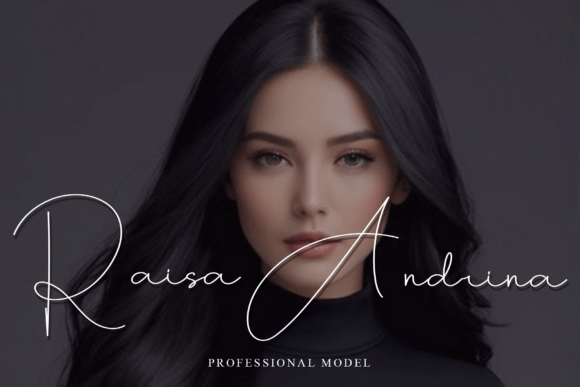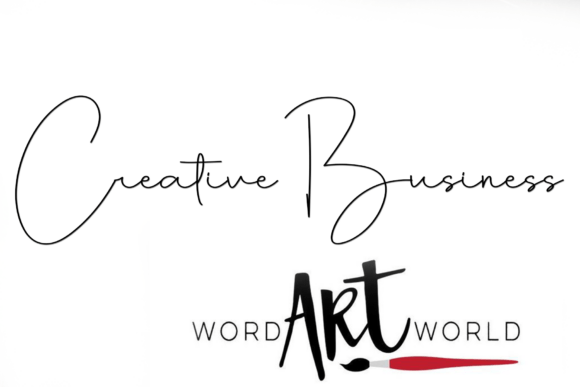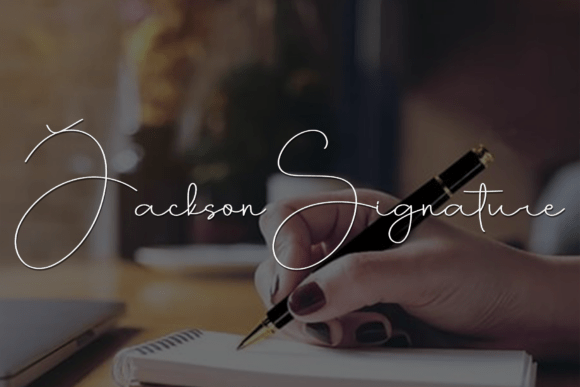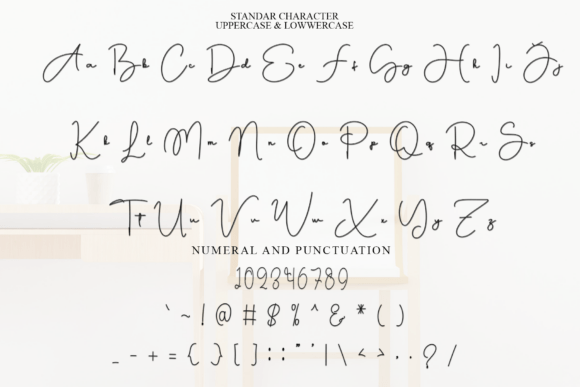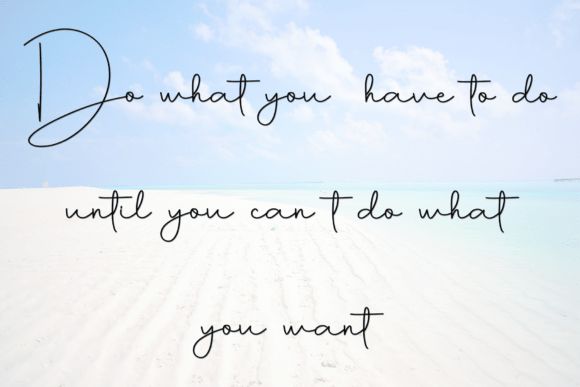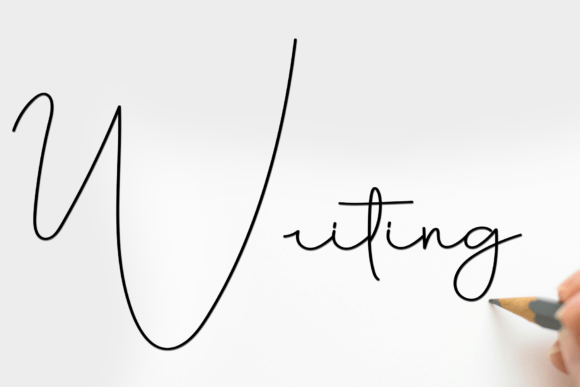
Introduction to Jackson Writing Font
Have you ever stumbled upon a design element that sparks creativity and inspires you to take your project to the next level? For designers, finding that perfect font can be a game-changer. It’s the difference between a good design and an exceptional one. For me, that moment came when I discovered the Jackson Writing Font, a beautiful and eye-catching typeface that has become a staple in my creative arsenal.
What sets Jackson Writing Font apart is its unique blend of softness and character. Its distinctive strokes give it a special charm, making it a valuable resource for designers seeking high-quality fonts for their creative projects. Whether you’re working on a graphic design project, crafting a unique product, or simply looking for a free download to enhance your designs, the Jackson Writing Font is an excellent choice.
Key Features of Jackson Writing Font
- High-quality, elegant design perfect for creative projects, making it a valuable design resource.
- Unique characteristics include its modern, cursive feel and the subtle flair at the end of each letter, adding a touch of sophistication to any text.
- Perfect for use in invitations, greeting cards, or any other creative project where a high-quality, elegant font is needed.
Honest Review: Jackson Writing Font
As a designer, I’m always on the lookout for high-quality design resources that can elevate my creative projects. The Jackson Writing Font is one such resource that caught my attention.
Here’s what I like about it:
- ✨ The font has a unique, elegant feel that’s perfect for a variety of creative projects.
However, there are a few limitations I’ve noticed:
- ⚠️ Some users may find the font a bit too ornate for their taste.
Overall, I’m impressed with the Jackson Writing Font. It’s a great addition to any designer’s toolkit, and its free download makes it a valuable resource for creative projects. While it may not be perfect for every project, it’s definitely worth considering for those looking for a high-quality, elegant font.
Tips for Getting the Most Out of Jackson Writing Font
For optimal results, use the Jackson Writing Font in conjunction with a transparent background. This will allow the text to stand out and add a professional touch to your design. You can also experiment with different font sizes, colors, and styles to create a unique look.
The Jackson Writing Font is ideal for a variety of creative projects, including presentations, reports, social media posts, and website content. Its high-quality design makes it a valuable resource for anyone looking to add a professional touch to their work.